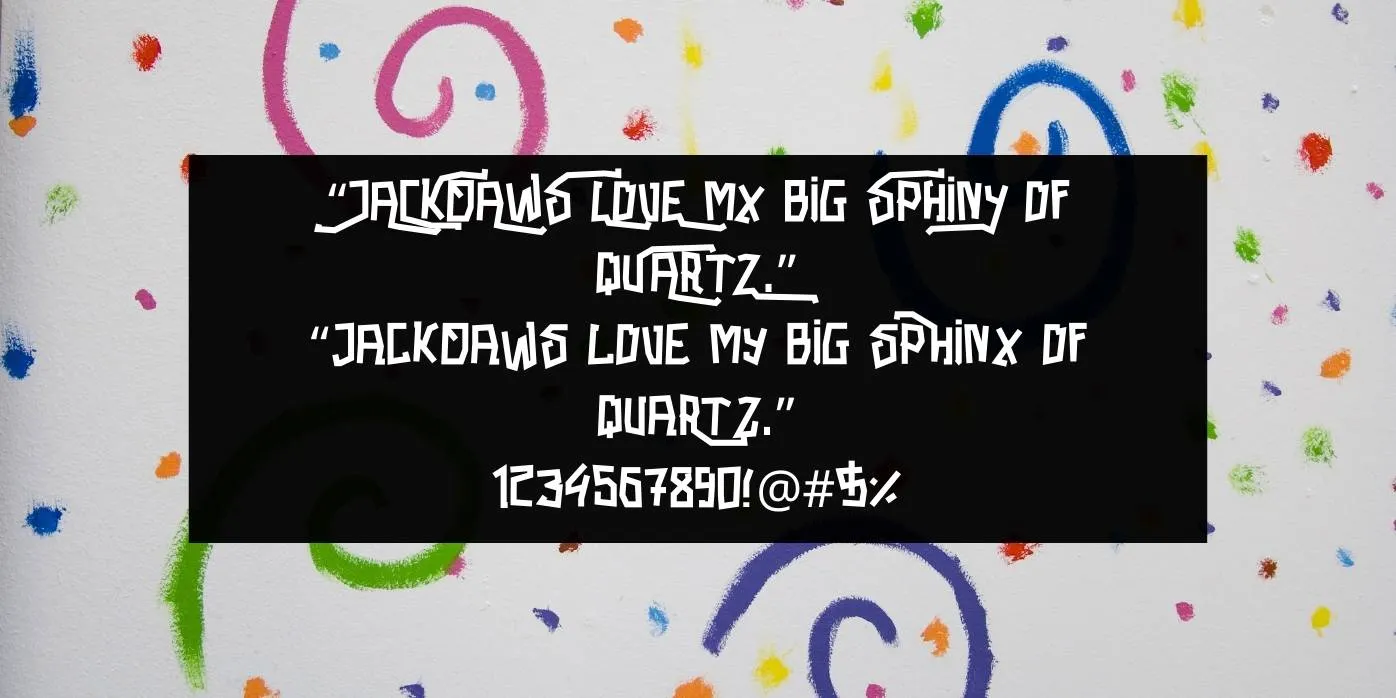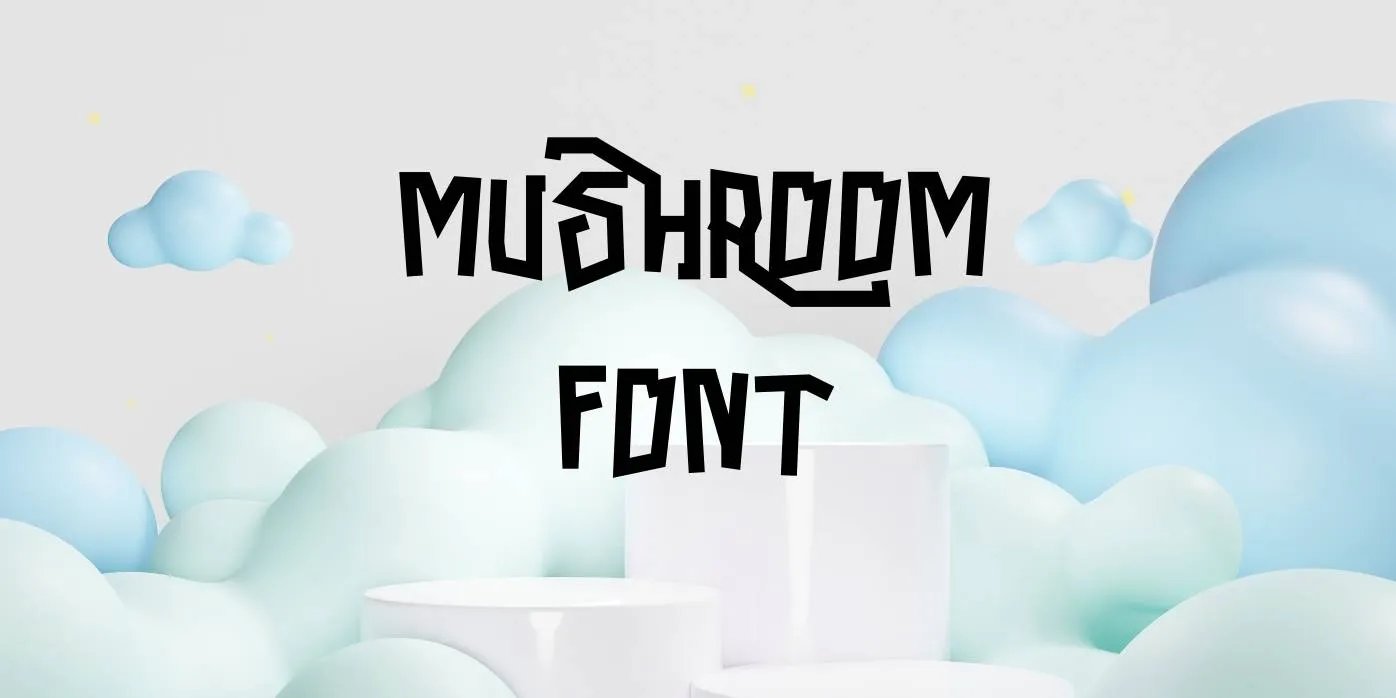
Mushroom Font
Mushroom Font is a typeface that was designed by Joe Lesko in 1998. The font is based on the lettering of the popular video game, Super Mario Bros. The Mushroom Font has been used by many companies and individuals for various purposes including product names, gaming, and advertising. The Mushroom Font is available in both regular and bold weights.
It is also available in a wide variety of sizes, from 6pt to 72pt. It is also known for its immense language support same as the tahoma font and it can support many different international alphabets. This typeface has been used by companies and it is also very well known due to its copy-paste function. The Font is a unique typeface that is perfect for any project that needs a bit of fun and whimsy.
It is sure to add personality to any design.